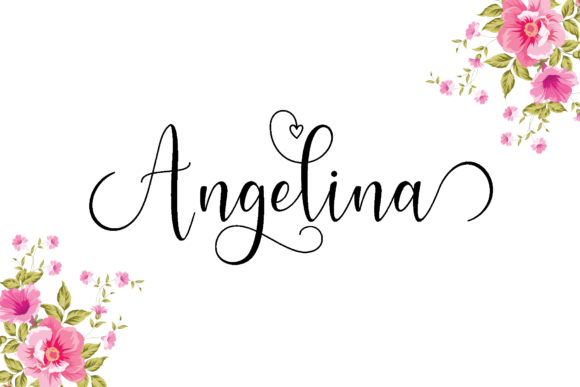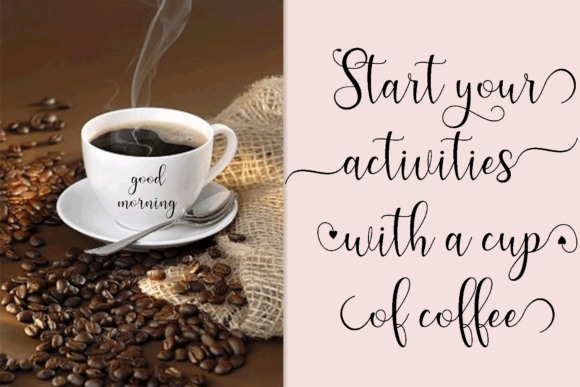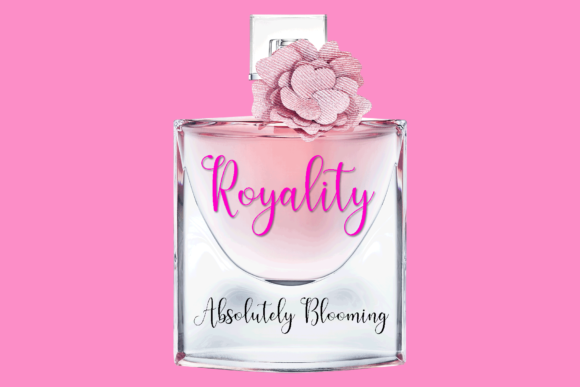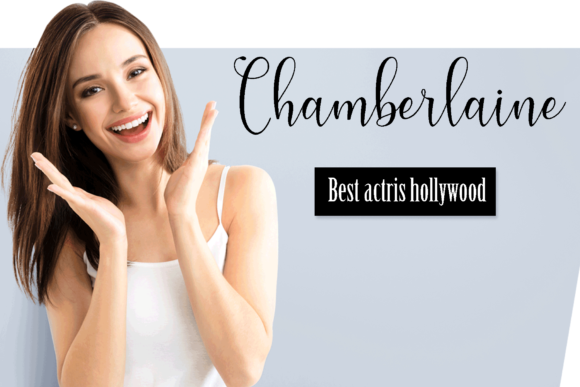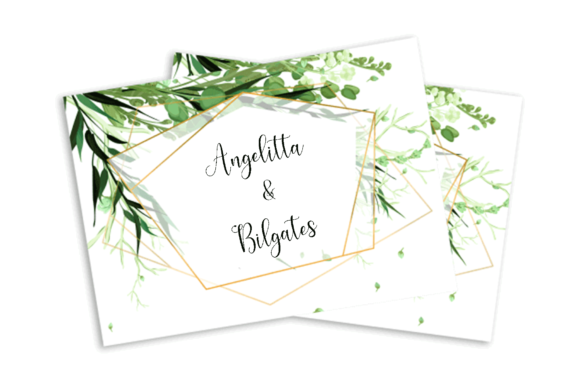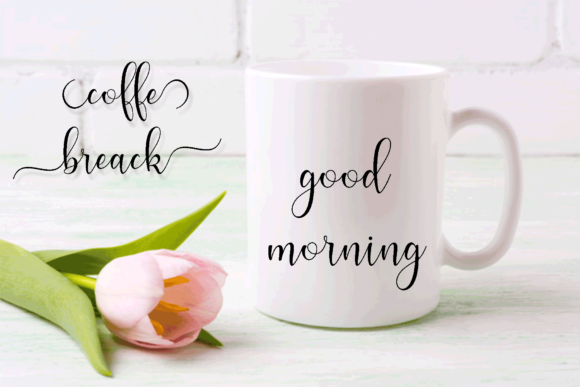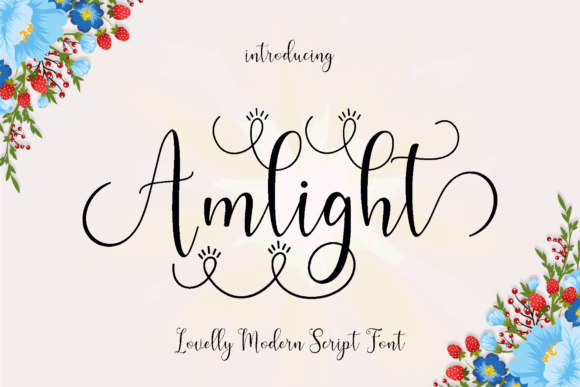
Amlight Font: Elevate Your Designs with Timeless Elegance
In the world of typography, few fonts manage to capture the essence of elegance and sophistication. Amlight Font is one such exceptional typeface that brings a touch of magic to your designs. This beautiful, handwritten font is meticulously crafted to offer a perfect blend of timeless elegance and authentic calligraphy, making it an ideal choice for designers and crafters looking to elevate their projects.
The Charm of Amlight Font
Amlight Font is not just any ordinary font; it’s a masterpiece that combines the fluidity of handwriting with the precision of digital design. Its varying baseline, smooth lines, and gorgeous glyphs work harmoniously to create a visually appealing aesthetic that can instantly uplift the quality of your designs. Whether you’re working on branding, headings, wedding designs, invitations, signatures, logos, labels, or any other project, Amlight Font is sure to add that extra layer of sophistication you’re looking for.
Key Features of Amlight Font
- Varying Baseline: One of the standout features of Amlight Font is its varying baseline. Unlike traditional fonts that follow a uniform baseline, Amlight’s letters dance along a subtle wave, creating a natural, hand-crafted feel that’s both elegant and engaging.
- Smooth Lines: The font boasts smooth, flowing lines that contribute to its elegant appearance. These lines are carefully designed to ensure that the text is easy to read while maintaining a high level of aesthetic appeal.
- Gorgeous Glyphs: Amlight Font comes with a rich set of glyphs that add depth and versatility to your designs. These glyphs can be used to create intricate patterns, add decorative elements, or simply to provide an alternative way of presenting your text.
- Stunning Alternates: To further enhance your design capabilities, Amlight Font includes stunning alternates. These alternate characters allow you to customize your text, making each project unique and tailored to your specific needs.
Applications of Amlight Font
The versatility of Amlight Font makes it suitable for a wide range of applications. Here are some of the areas where Amlight Font truly shines:
- Branding: Create a lasting impression with your brand’s identity by using Amlight Font in your logos, business cards, and letterheads.
- Wedding Designs: Add a touch of romance and elegance to your wedding invitations, programs, and decorations with Amlight Font.
- Invitations: Whether it’s a wedding, birthday, or any other celebration, Amlight Font can help you create beautiful and memorable invitations.
- Signatures and Logos: Elevate your personal or business brand with elegant signatures and logos crafted using Amlight Font.
- Labels and Packaging: Stand out in the market with beautifully designed labels and packaging that reflect the sophistication of your brand.
Why Choose Amlight Font?
In a market flooded with countless fonts, Amlight Font stands out for several reasons:
- Uniqueness: Amlight Font offers a unique blend of elegance and authenticity, making your designs instantly recognizable.
- Versatility: Its wide range of applications ensures that you can use Amlight Font across various projects, making it a valuable addition to your font library.
- Quality: The meticulous design and attention to detail in Amlight Font guarantee a high-quality aesthetic that’s hard to match.
Amlight Font is more than just a typeface; it’s a design tool that can transform your projects with its magical touch of elegance. Whether you’re a professional designer or a crafter, Amlight Font offers the perfect combination of style, versatility, and quality to elevate your designs to the highest level. With its beautiful lines, charming glyphs, and stunning alternates, Amlight Font is sure to become an indispensable part of your creative arsenal.